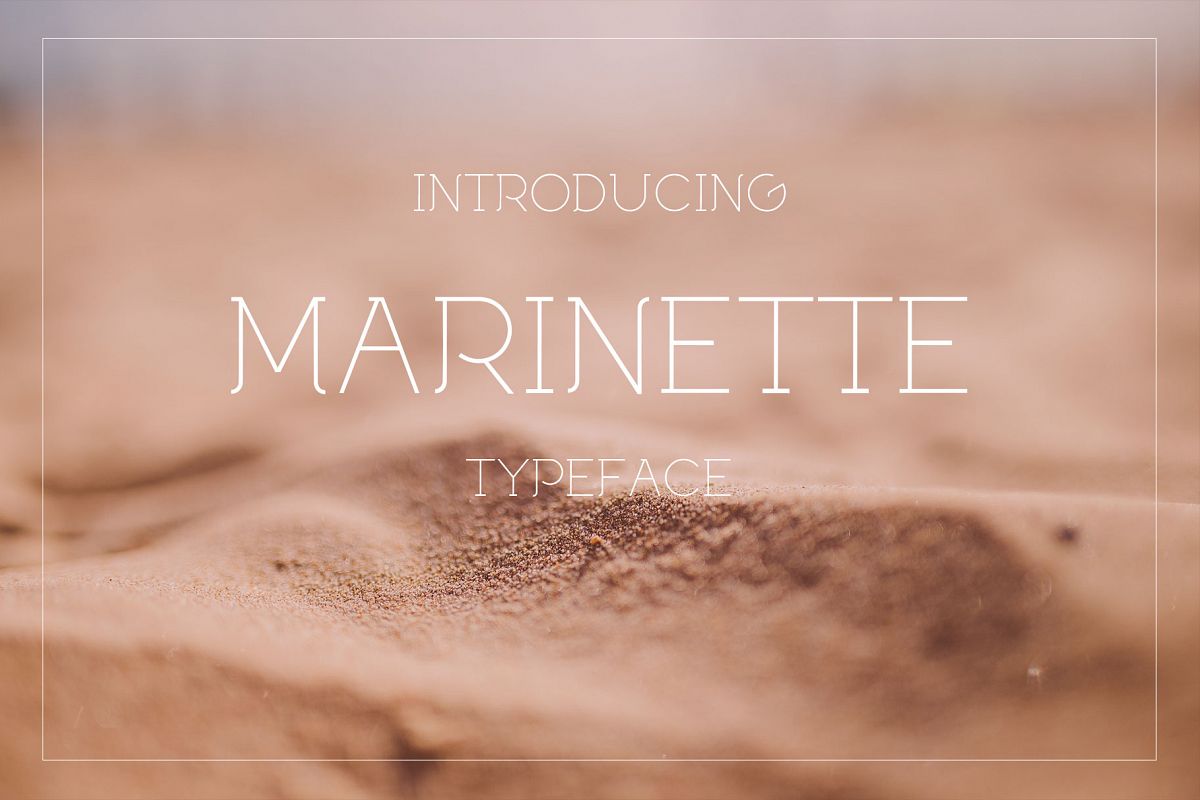
Marinette
Marinette is casual and easy, ideal for any setting in larger sizes. Still, due to its excellent legibility, it can also be used for little text blocks in smaller sizes. Use it for your magazines, brochures and editorial layouts.
Marinette